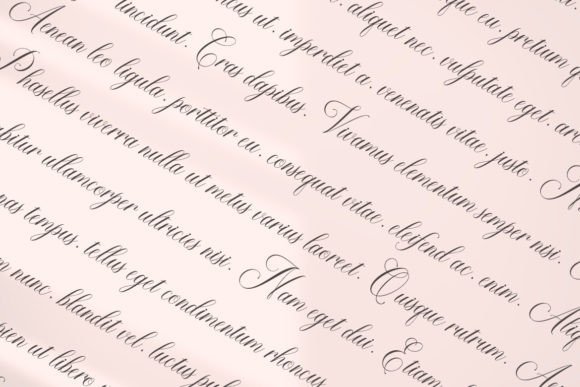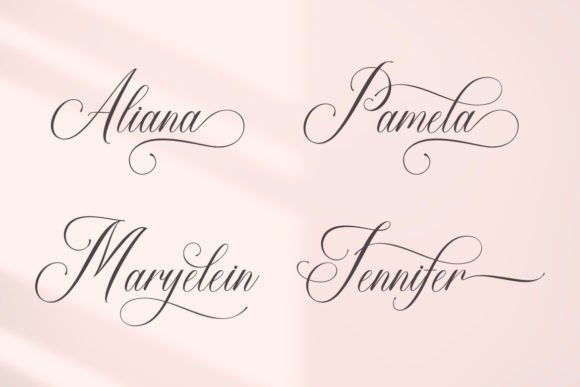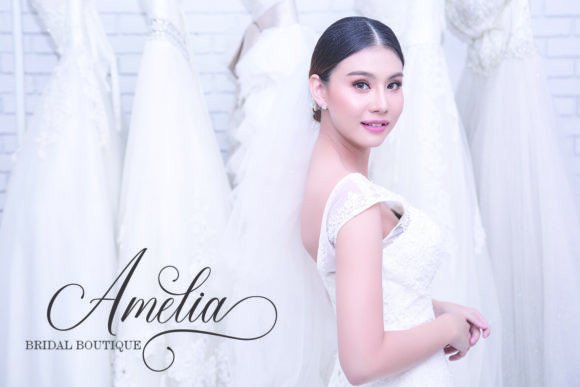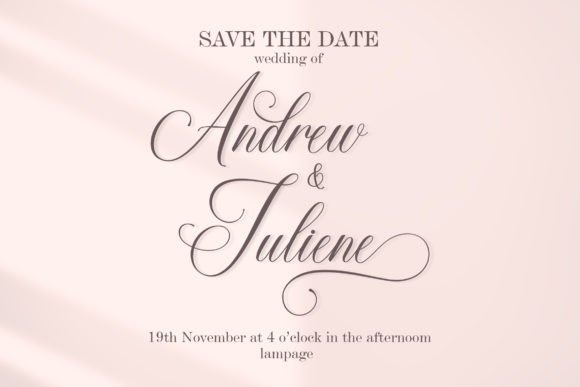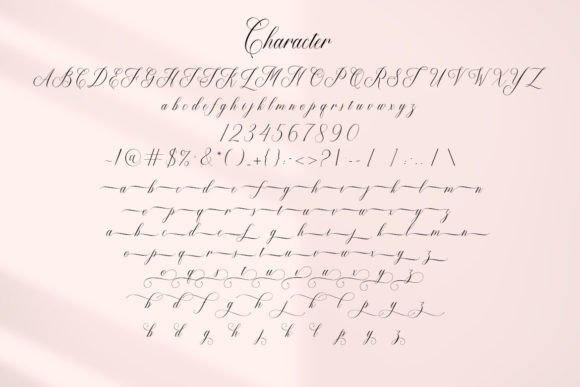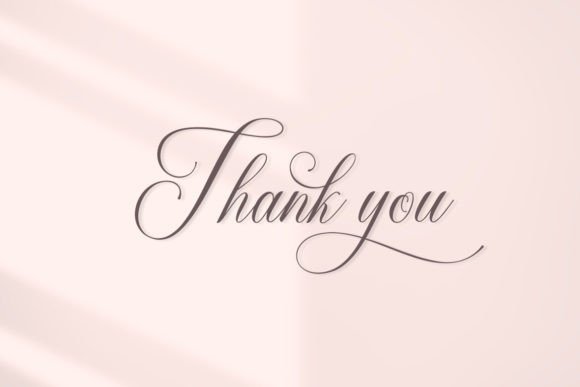
Experience the Elegance of Font Chrystal: The Ultimate Choice for High-Style Designs
In the world of typography, few fonts manage to strike a balance between delicateness and refined flair as effortlessly as Font Chrystal. This modern script font has been meticulously crafted to bring a touch of sophistication and elegance to any design project. With its lean letterforms, fluid brushstrokes, and subtle curves, Font Chrystal is the perfect choice for designers and crafters looking to add a dash of high-style elegance to their creations.
The Art of Elegance: A Closer Look at Font Chrystal
Font Chrystal is more than just a font – it’s a style statement. Each glyph has been thoughtfully created to exhibit a sense of sophistication and finesse, making it the ideal choice for luxurious branding, lavish wedding invitations, and exquisite editorial designs. The font’s chic sophistication is sure to elevate any design project, giving it a polished and refined look that’s sure to impress.
One of the standout features of Font Chrystal is its unique blend of fluid brushstrokes and subtle curves. This distinctive combination gives the font a sense of movement and fluidity, making it perfect for designs that require a touch of elegance and poise. Whether you’re looking to create a stunning wedding invitation, a luxurious brand identity, or a beautiful editorial design, Font Chrystal is the perfect choice.
Font Chrystal is a versatile font that’s perfect for a wide range of design projects. Its elegant and refined aesthetic makes it ideal for:
- Lavish wedding invitations and stationery
- Luxurious branding and packaging
- Exquisite editorial designs and magazines
- High-end fashion and beauty designs
- Any design project that requires a touch of elegance and sophistication
Whether you’re a designer, crafter, or DIY enthusiast, Font Chrystal is the perfect choice for anyone looking to add a touch of high-style elegance to their creations. With its easy-to-use format and stunning aesthetic, Font Chrystal is sure to become a go-to font in your design arsenal.
Why Choose Font Chrystal?
So why choose Font Chrystal over other fonts? Here are just a few reasons why Font Chrystal stands out from the crowd:
- Elegant and refined aesthetic: Font Chrystal’s unique blend of fluid brushstrokes and subtle curves gives it a sophisticated and elegant look that’s hard to find in other fonts.
- Versatile: Font Chrystal is perfect for a wide range of design projects, from wedding invitations to luxurious branding and editorial designs.
- High-quality: Font Chrystal is a high-quality font that’s been meticulously crafted to ensure that it looks stunning in any design project.
In conclusion, Font Chrystal is a modern script font that’s perfect for designers and crafters looking to add a touch of high-style elegance to their creations. With its elegant and refined aesthetic, versatile design, and easy-to-use format, Font Chrystal is the ultimate choice for anyone looking to create stunning designs that exude sophistication and finesse. Whether you’re looking to create a lavish wedding invitation, a luxurious brand identity, or an exquisite editorial design, Font Chrystal is the perfect choice.